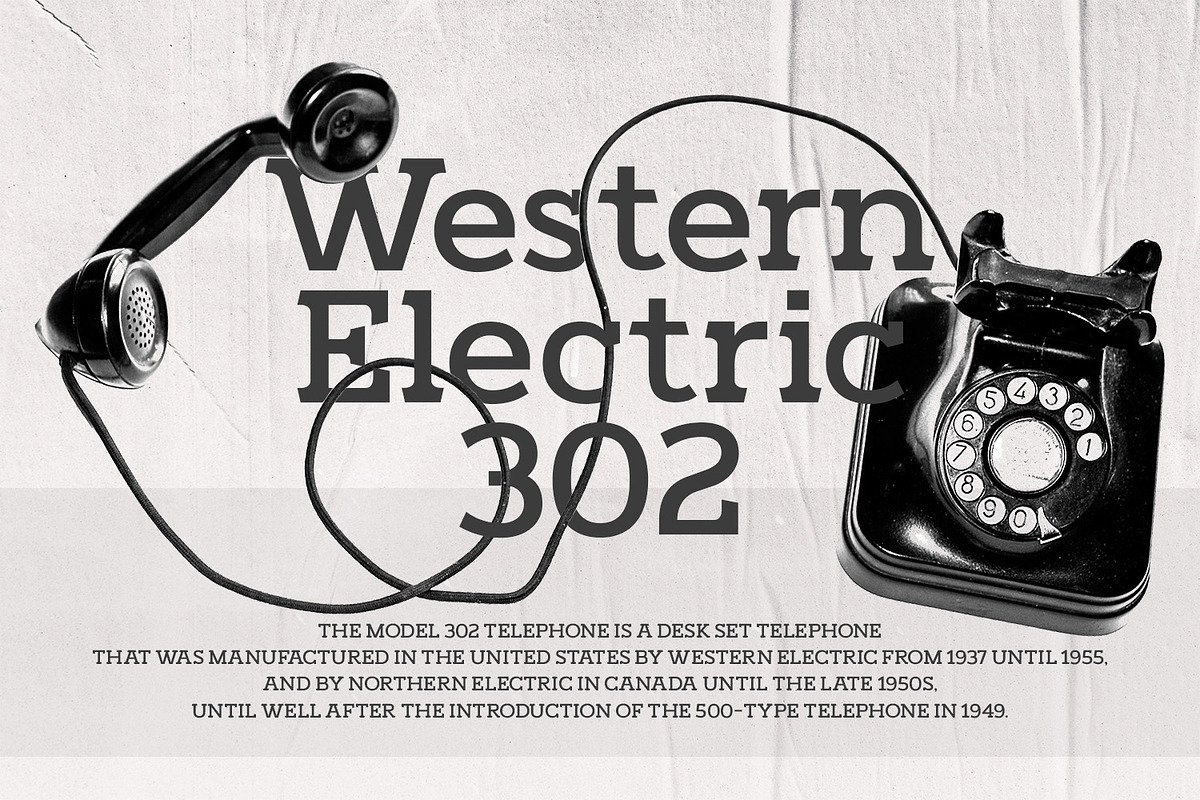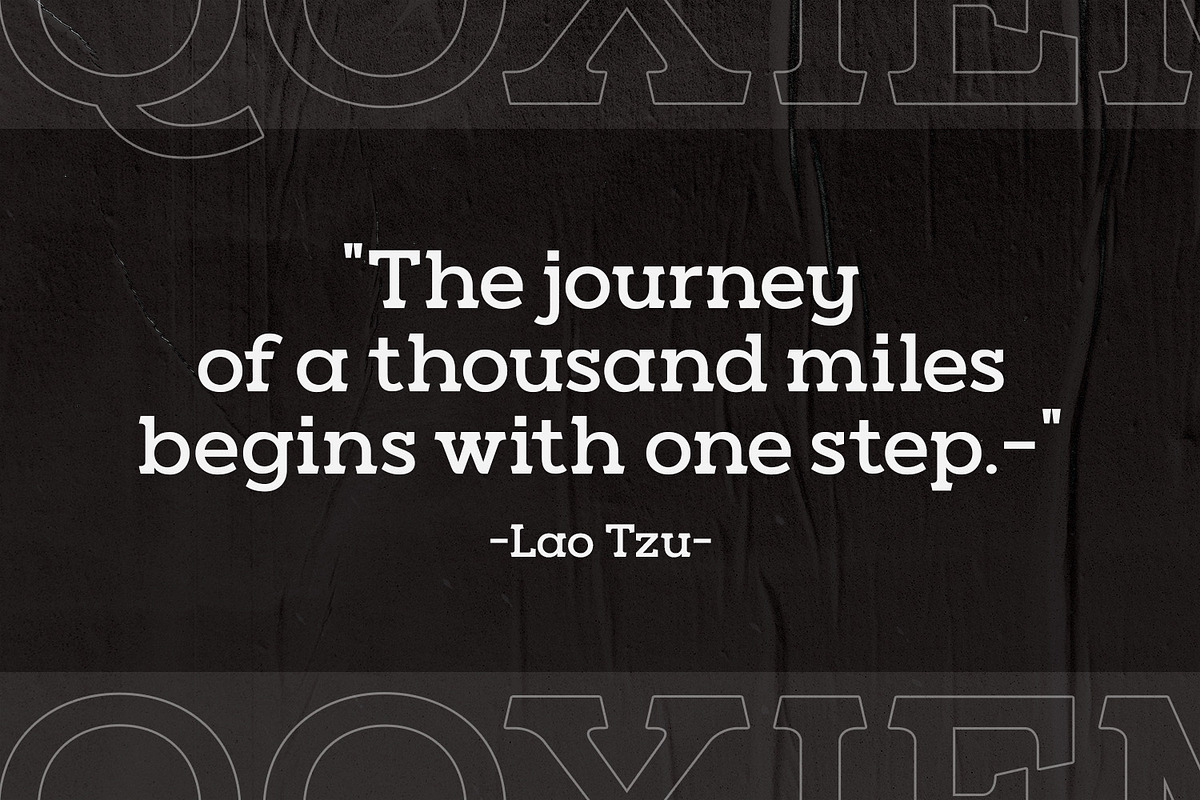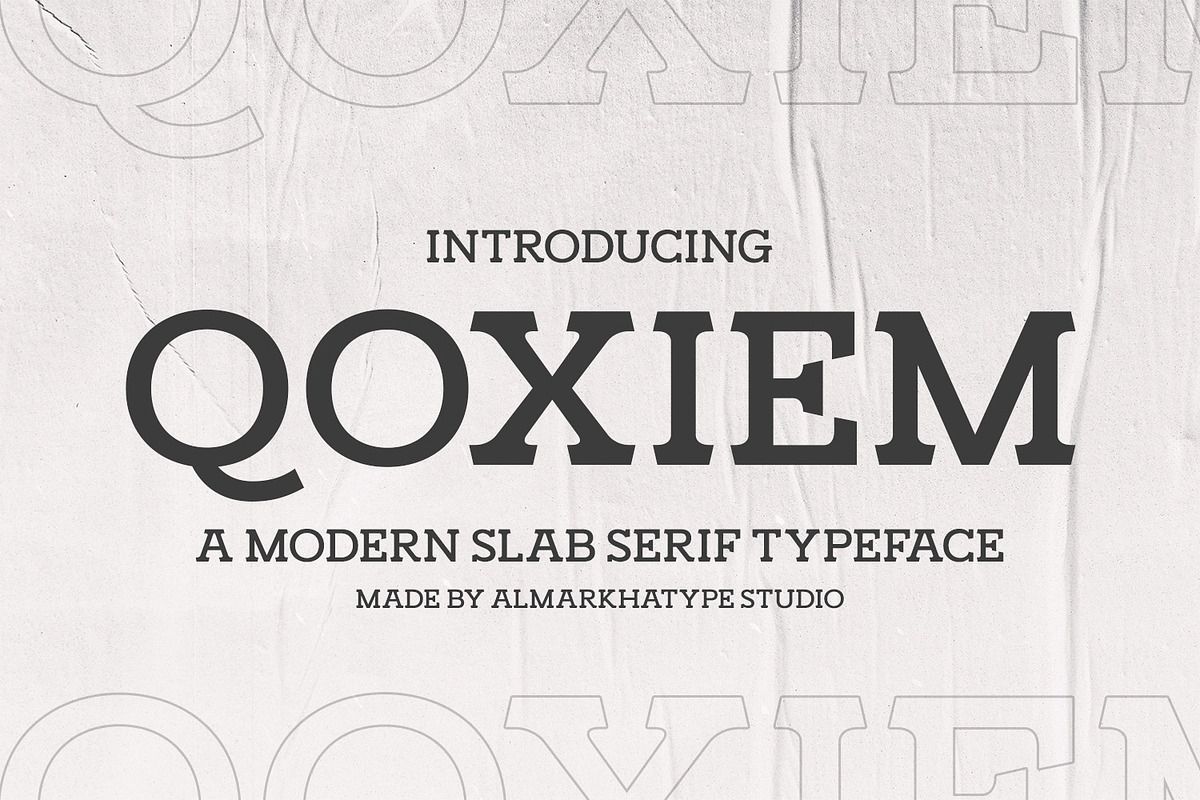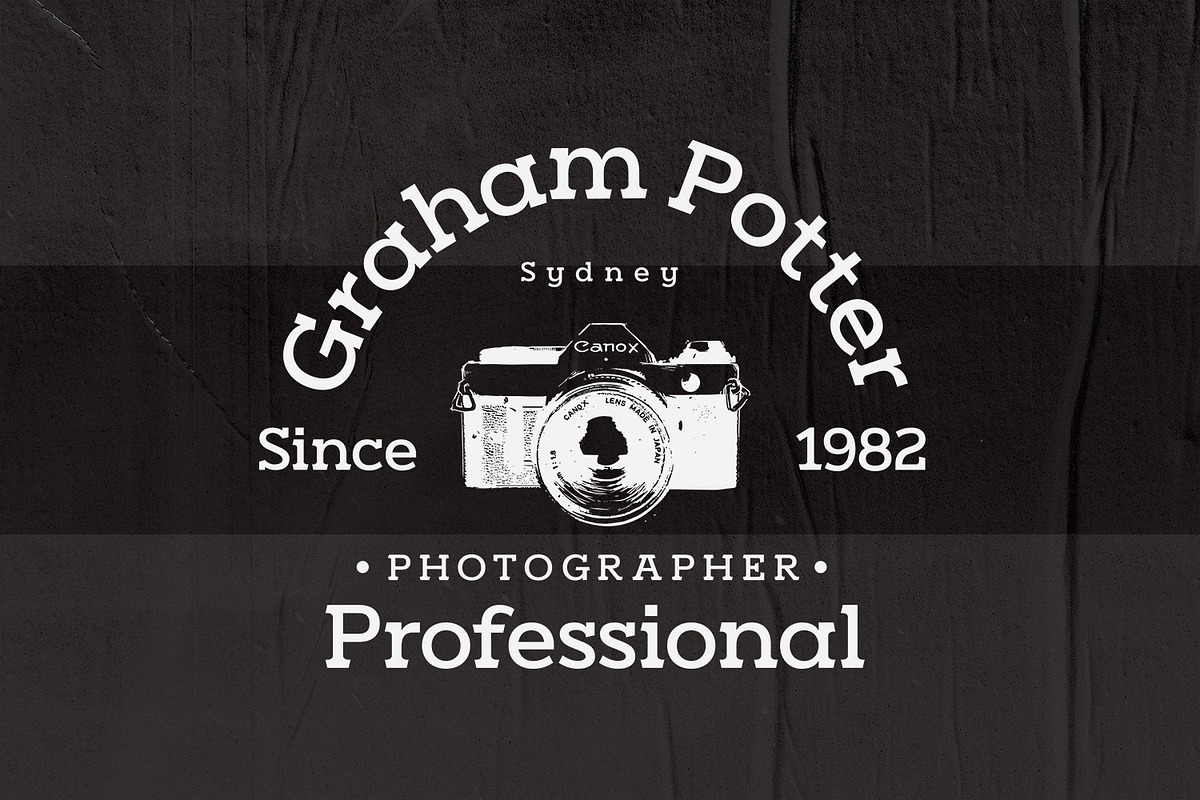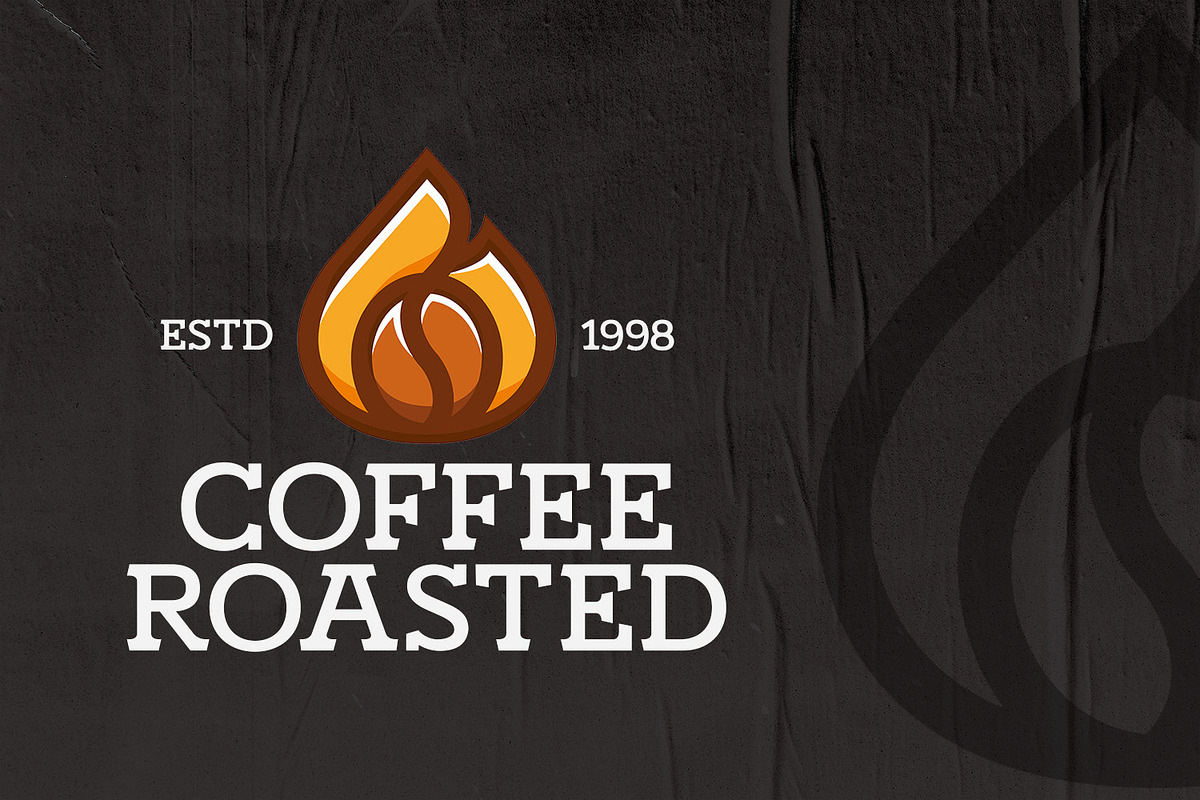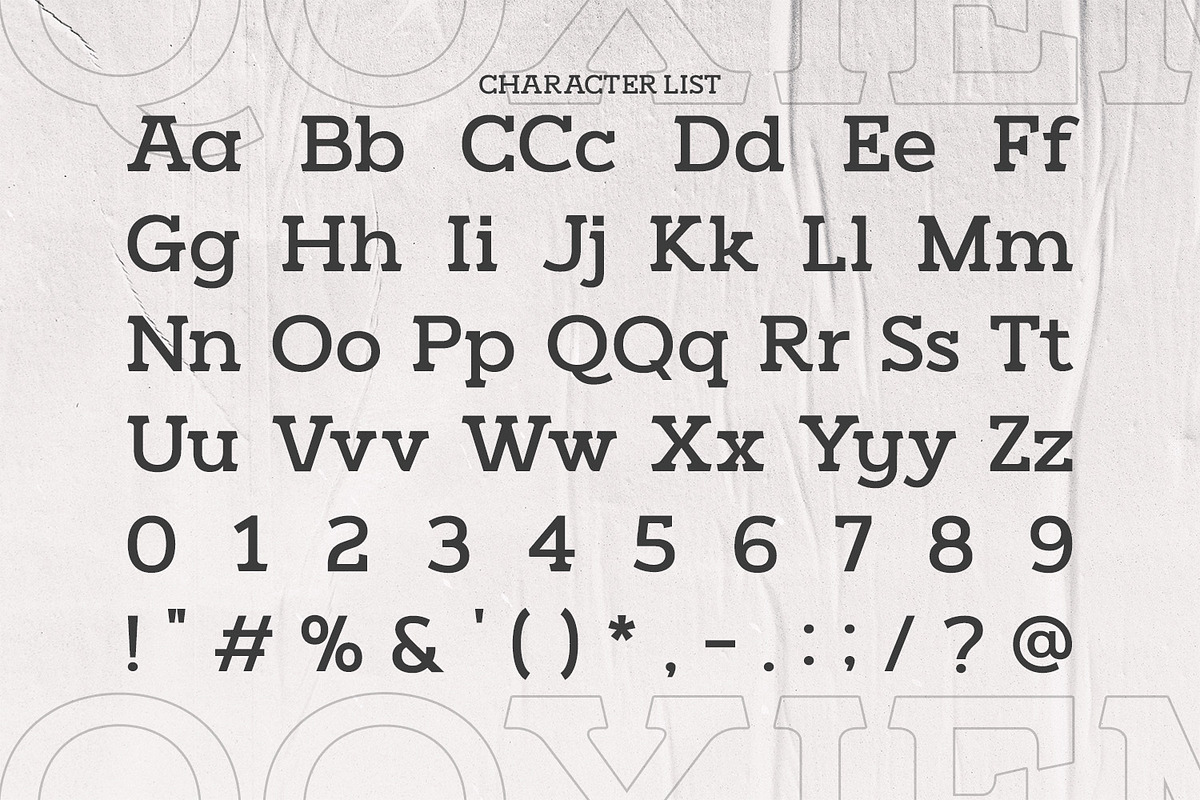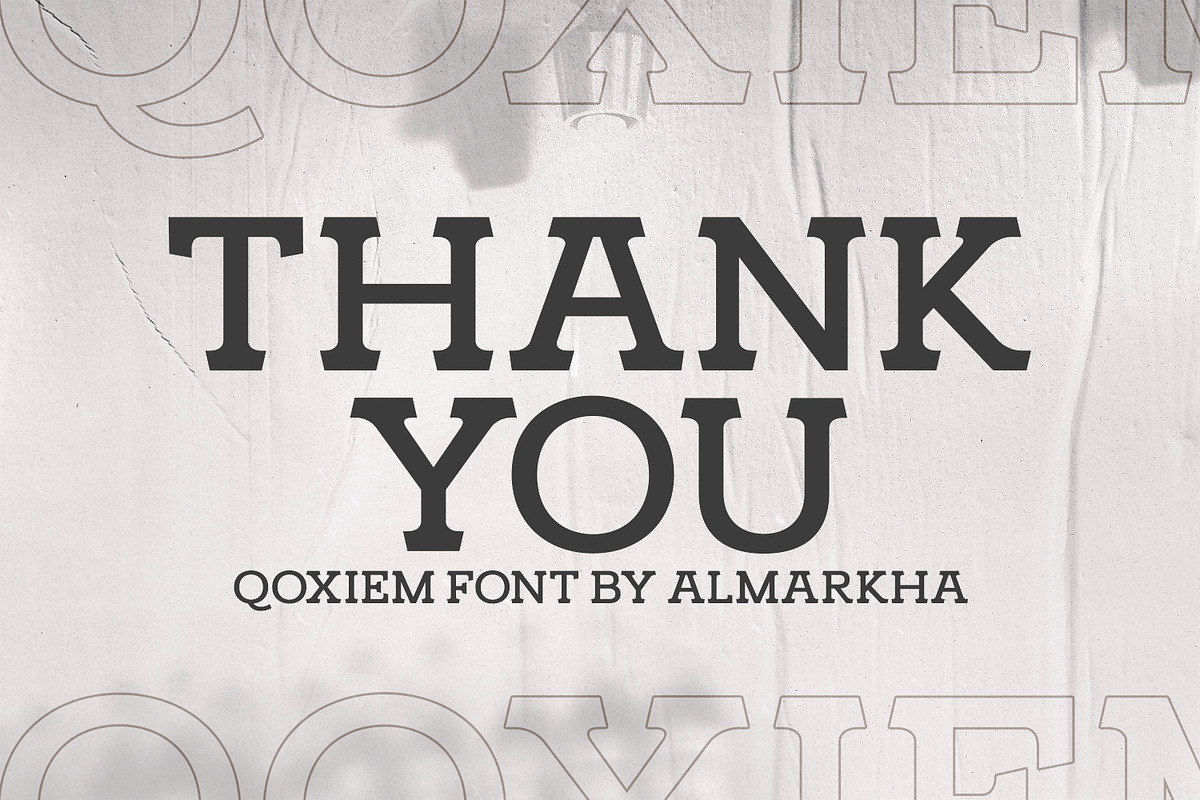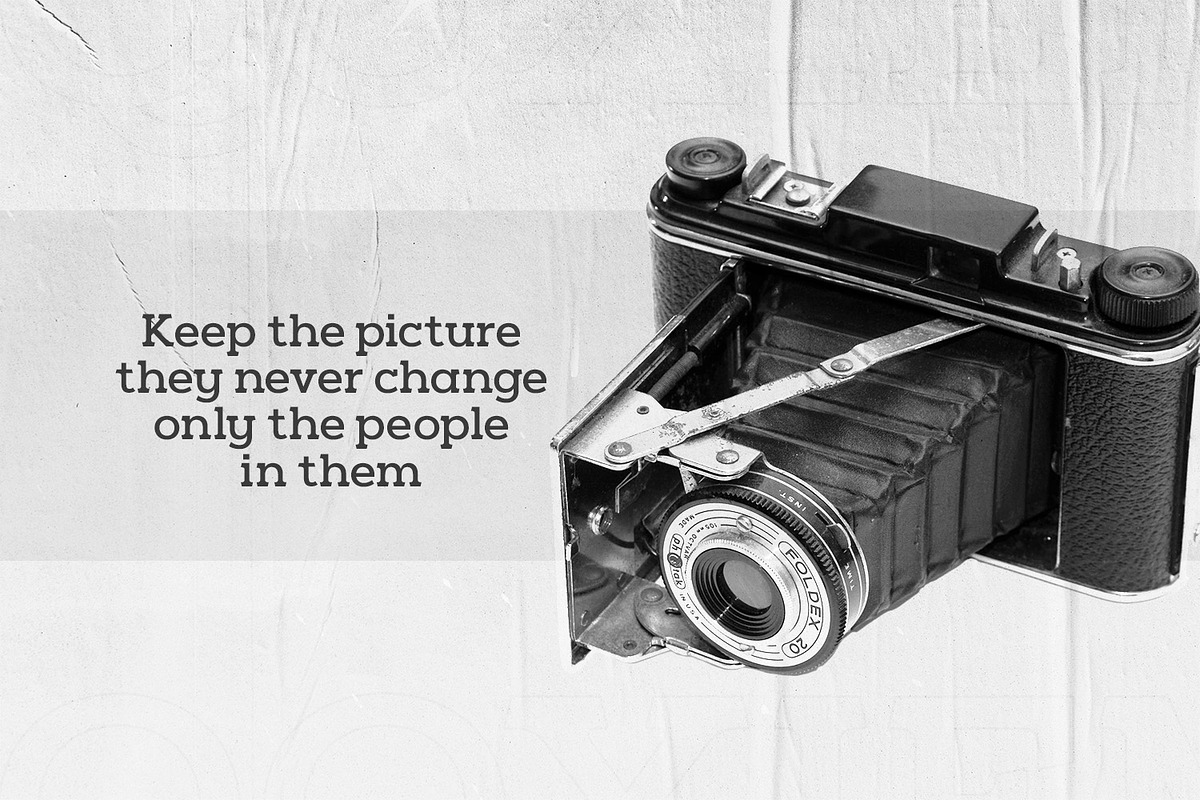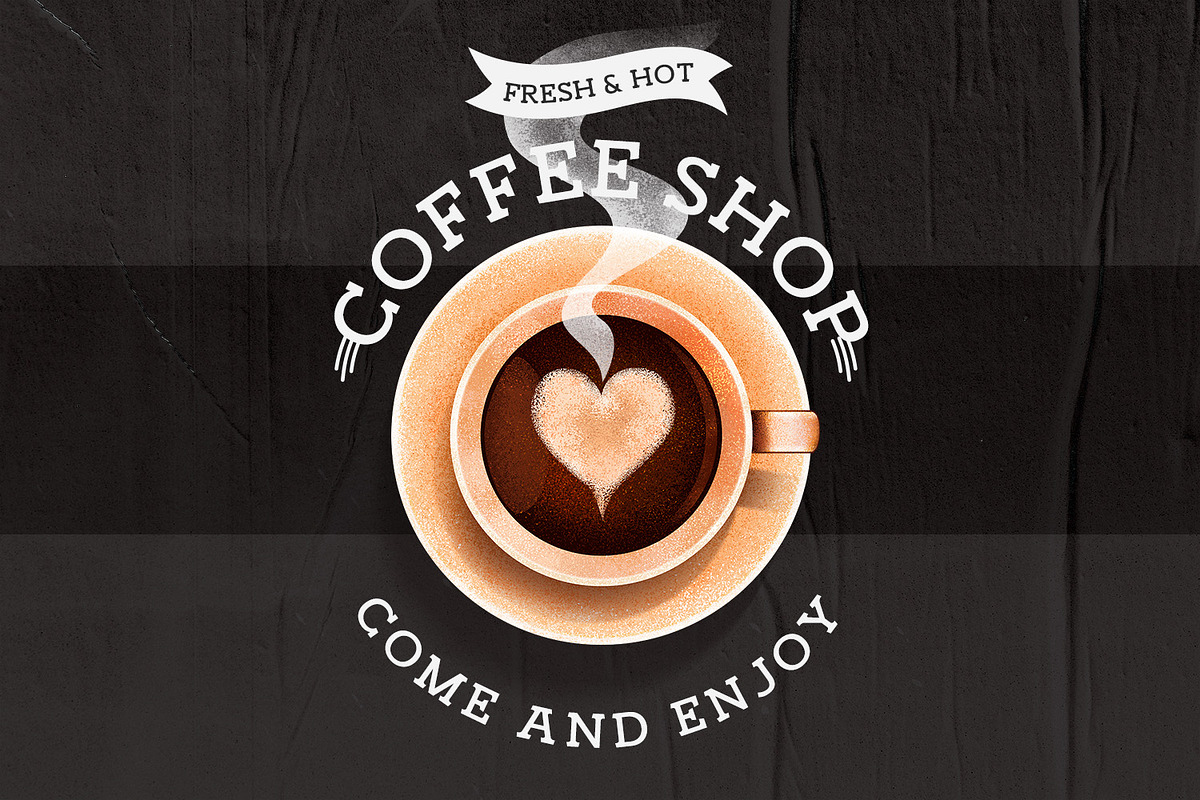
Qoxiem - Modern Slab Serif Typeface
Introducing our latest Modern Slab called Qoxiem can make your logotype become more interesting. inspired by the decorative arts and architecture movement
Qoxiem fonts is perfect for your project and allows you to create designs, headlines, posters, logos, badges, t-shirts and many more that are beautiful. It is also best used for posts, logos, posters, certificates, labels and more.
- Alternate glyphs
- Multilingual Accent